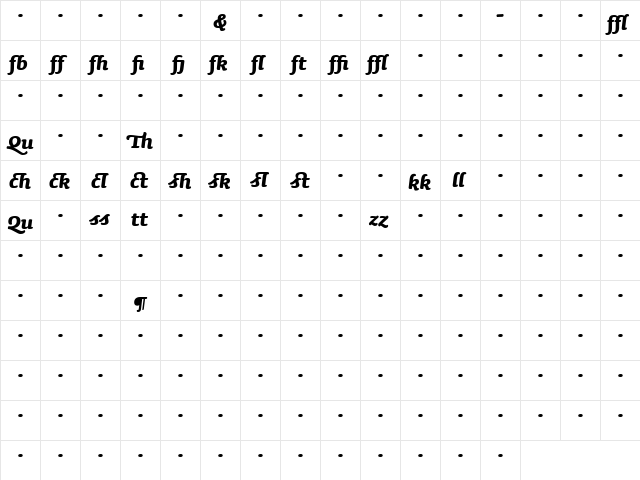
SaunaLigatures-BoldItalicSwash Regular Font Preview
Design Context for SaunaLigatures-BoldItalicSwash Typeface
SaunaLigatures-BoldItalicSwash flows with the natural rhythm of handwritten lettering, making it ideal for designs that call for warmth and personal expression. Its bold stroke weight gives it real presence on the page.